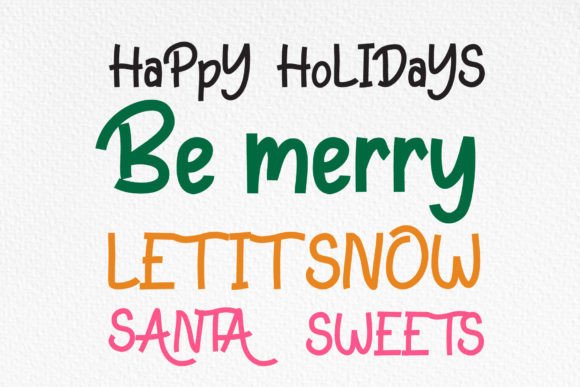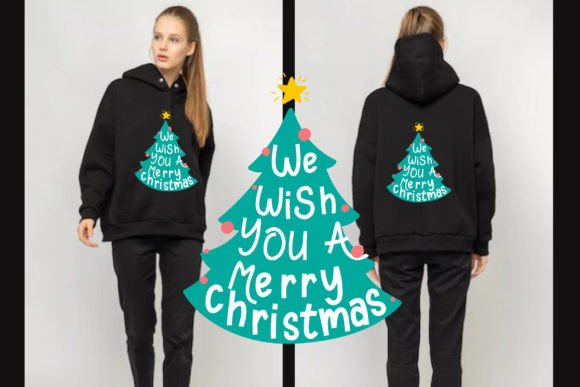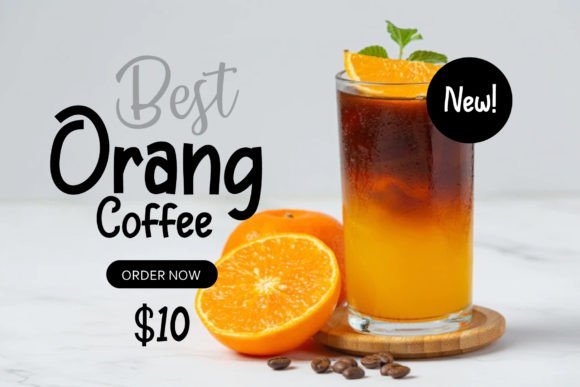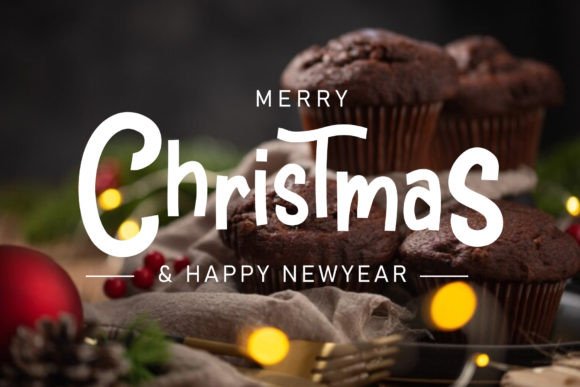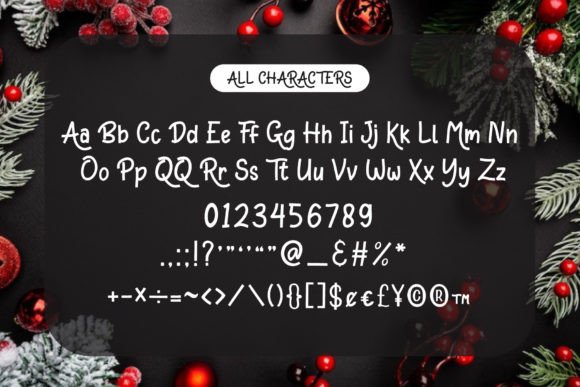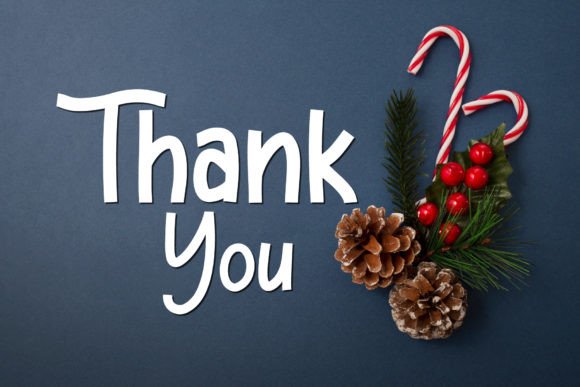
Introducing Christmas Wish Font: The Perfect Addition to Your Holiday Designs
Are you looking for a font that will add a touch of magic to your holiday designs? Look no further than Christmas Wish Font, a bold and modern handwritten font that’s perfect for creating whimsical and eye-catching projects. In this article, we’ll take a closer look at Christmas Wish Font, its features, and how you can use it to take your creativity to the next level.
What is Christmas Wish Font?
Christmas Wish Font is a carefully crafted handwritten font that’s designed to bring a sense of wonder and enchantment to your designs. With its bold and modern aesthetic, this font is perfect for creating a wide range of projects, from holiday cards and invitations to social media graphics and more.
Key Features of Christmas Wish Font
- Bold and Modern Design: Christmas Wish Font features a bold and modern design that’s perfect for making a statement.
- Handwritten Style: The font’s handwritten style gives it a personal and whimsical touch that’s perfect for holiday designs.
- Easy to Read: Despite its bold design, Christmas Wish Font is easy to read, making it perfect for use in a wide range of projects.
- Versatile: Christmas Wish Font can be used in a variety of projects, from digital designs to print materials.
| Font Name | Christmas Wish Font |
| Author | keng graphic |
Christmas Wish Font is a bold and modern handwritten font that’s perfect for adding a touch of magic to your holiday designs. With its easy-to-use design and versatile style, this font is sure to become a favorite in your font library. Whether you’re a designer, crafter, or simply someone who loves the holiday season, Christmas Wish Font is the perfect addition to your creative toolkit.